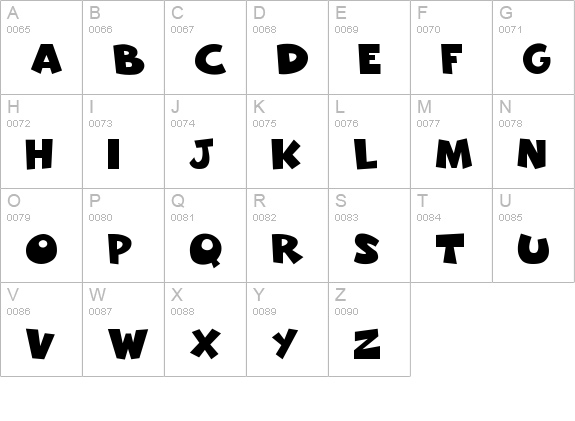
Freakomix Font Details
Freakomix font is a vibrant and playful display typeface that is perfect for adding a touch of whimsy to your designs. Its unique letterforms and quirky charm make it stand out from the crowd. Whether you're creating posters, logos, or social media graphics, Freakomix font will bring a fun and energetic vibe to your projects. The best part? Freakomix font is completely free to download at FontsMarket.com. This means you can easily access this eye-catching typeface and use it in your personal and commercial projects without any cost. Don't miss out on the opportunity to add a splash of creativity to your designs with the free Freakomix font!